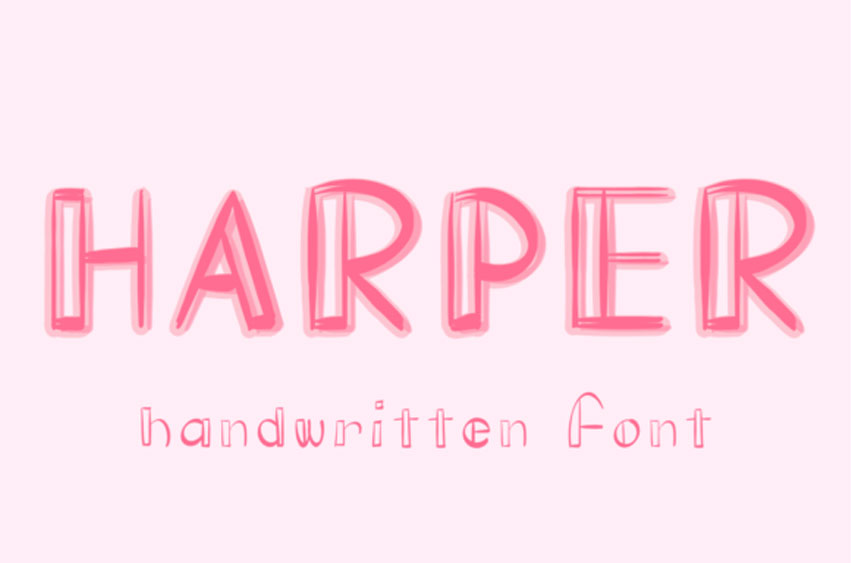
Harper Handwritten Font
Harper Handwritten Font is a sweet and friendly handwritten font. Its natural and unique style makes it incredibly fitting to a large pool of designs.